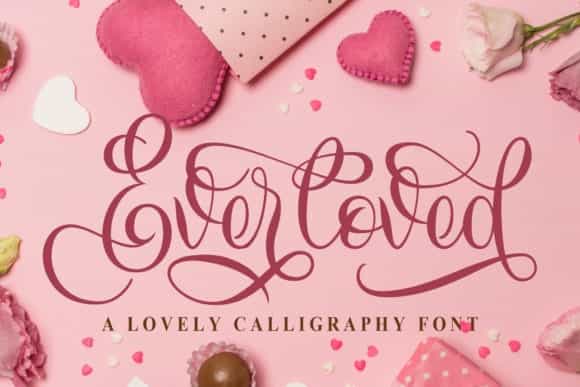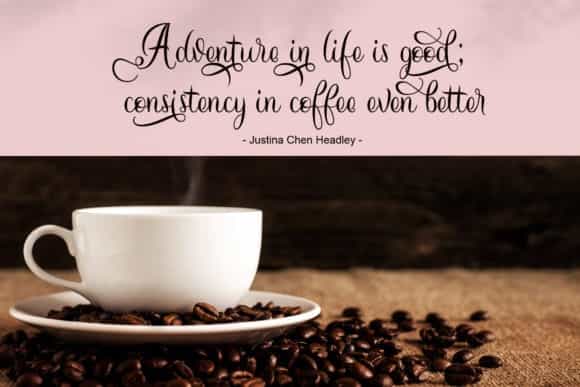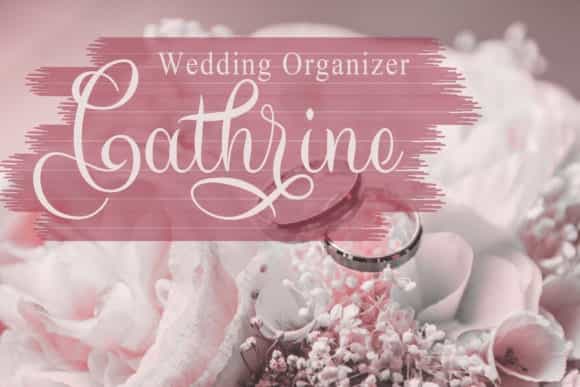
The Everloved font is a wonderful script. It has smooth and clean loops of the ascenders and descenders as well as graceful upper case letters. Natural, but at the same time very free and easy-going it is a typestyle for many different uses because it is so soft and has fast curves while its low slant angle makes it very readable.